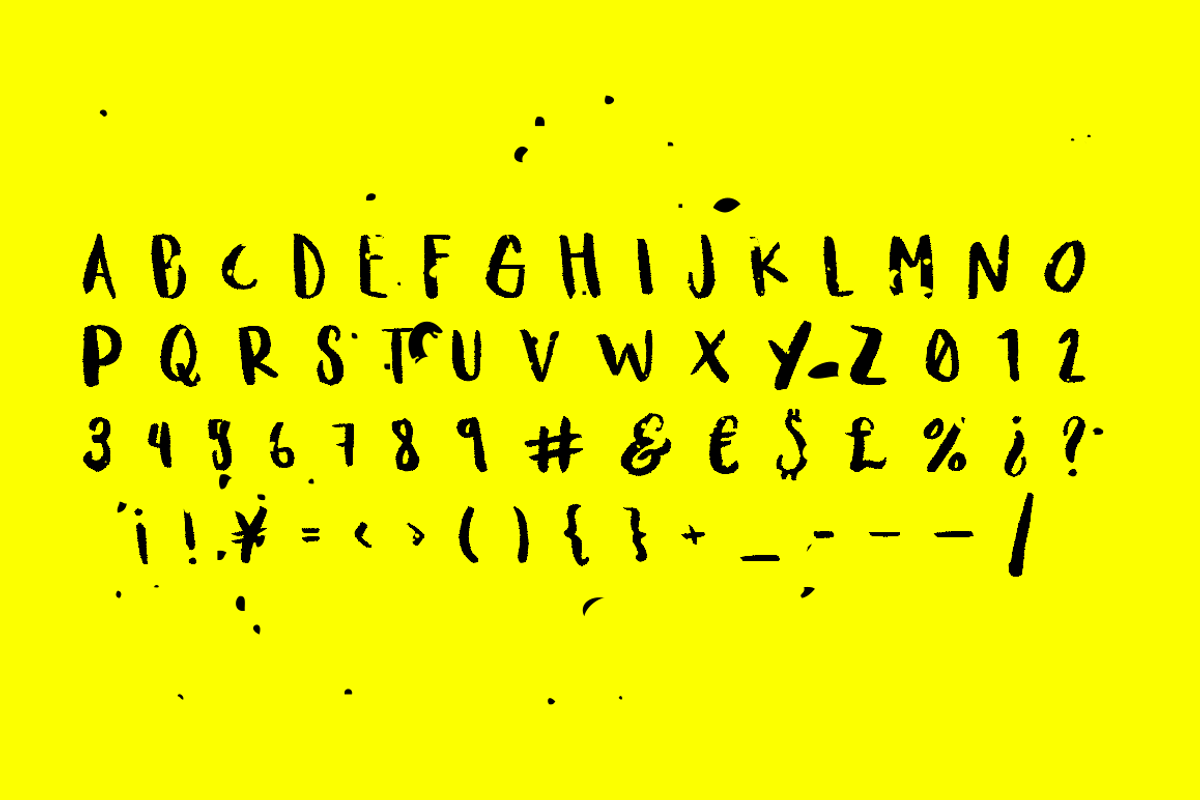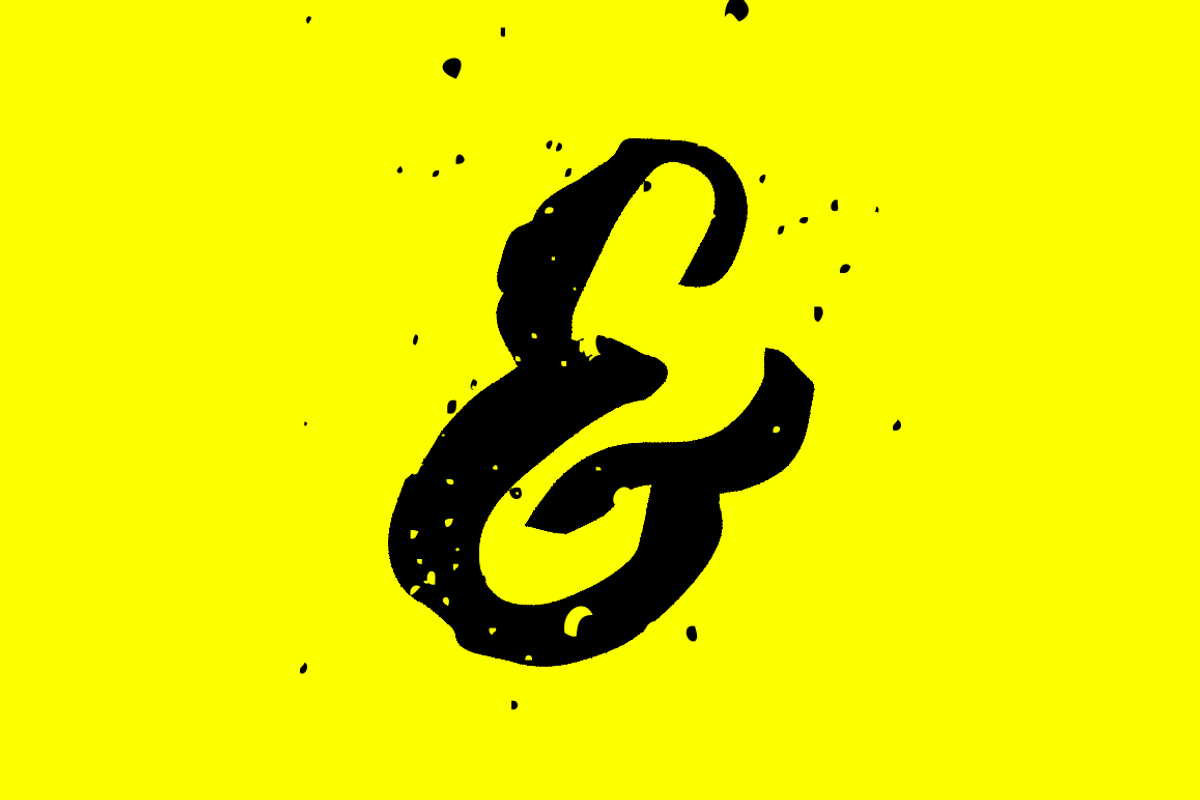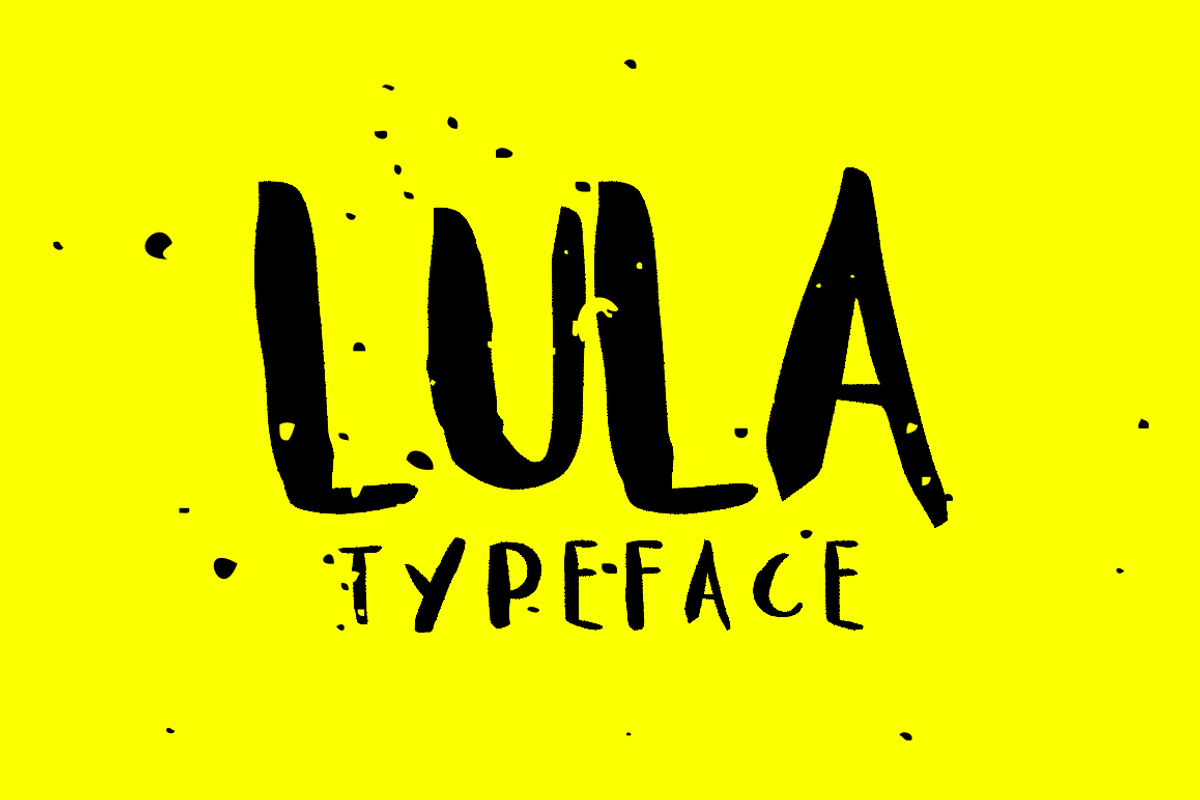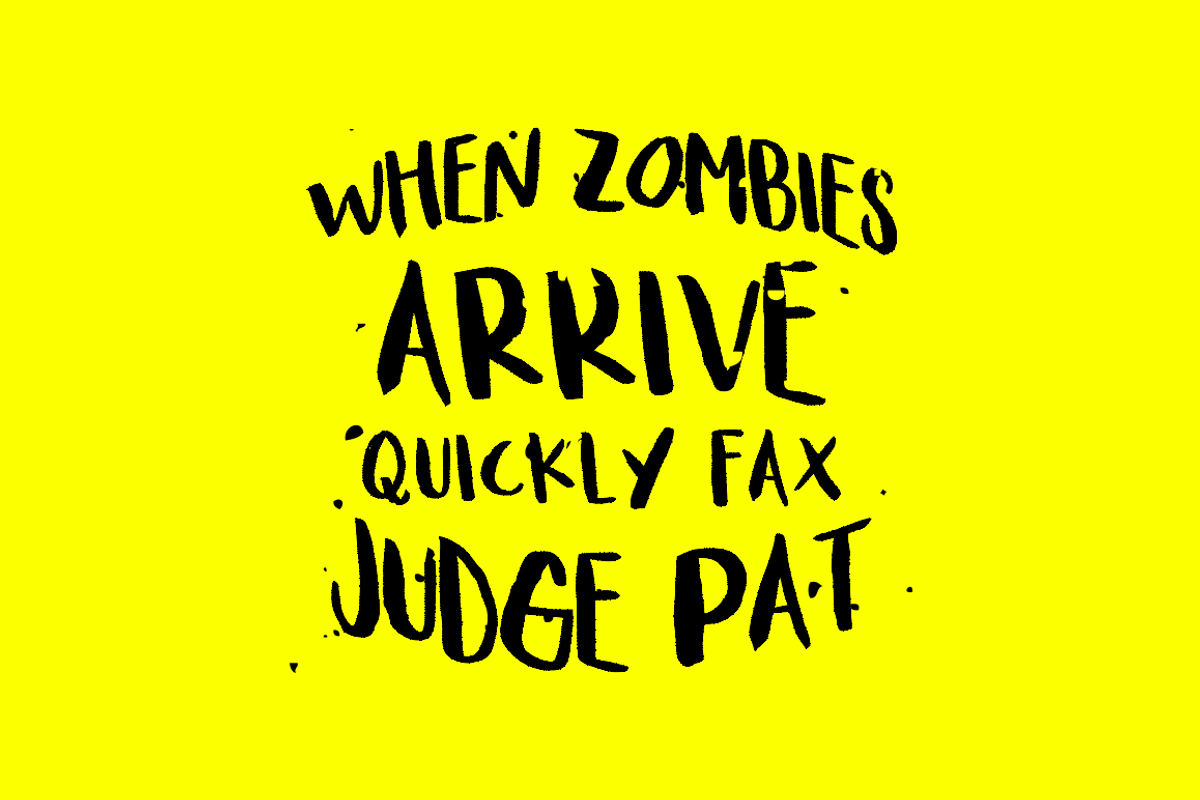
Lula Font
Lula Font by Noe Araujo is a font selected for branding, posters, packaging, typography.
Why Lula Font is worth a look
Lula Font by Noe Araujo fits naturally into Branding, posters, packaging, typography.